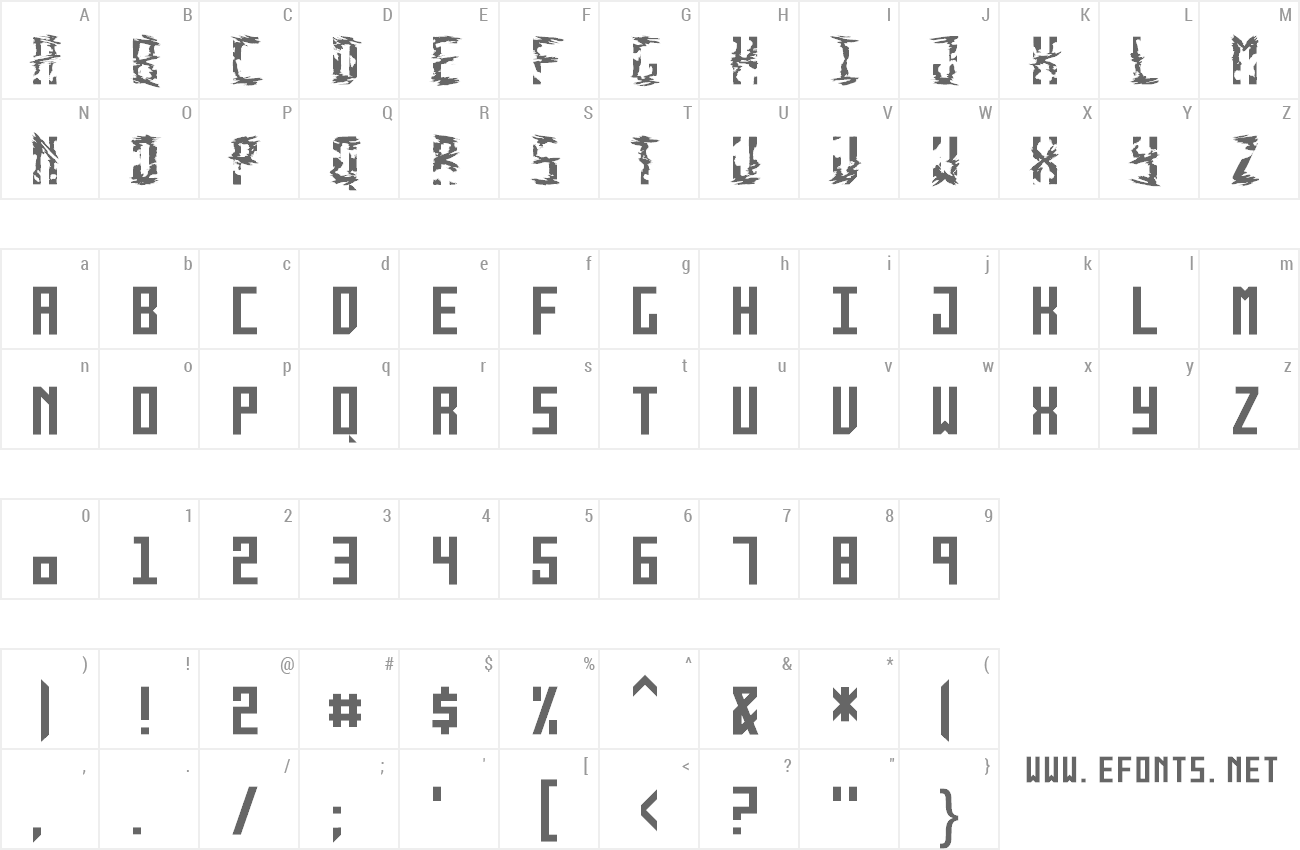
| Font name: | Monolyth Mono |
| Author: | Khay Redd |
| Note by Khay Redd | |
Monolyth monospaced. A very simple, constructed, monospaced font with manually destroied capitals. For geometrical graphic designs or headlines. The capitals may be used for more free works, theme based. !NOTICE!: the capitals have a huge amount of anchor points, so their use require more hardware engine than ordinary fonts. Have fun by using it! |